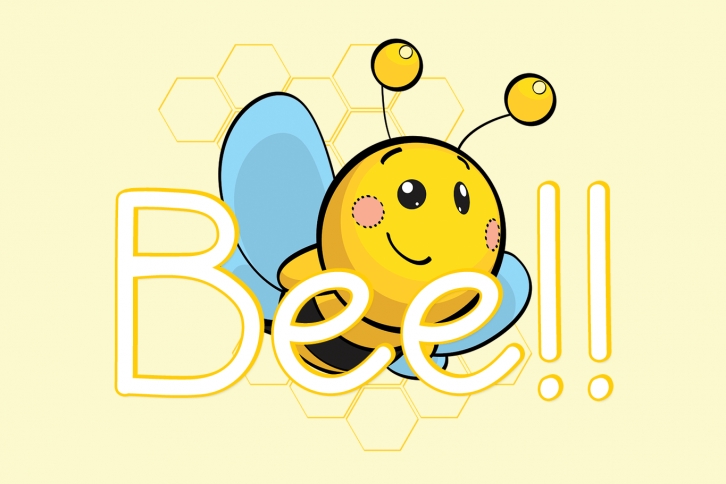
Bee is a thin-lettered handwritten font masterfully crafted to become a true favorite. Contemporary and fresh, it is perfect for any design you wish to create. Add it to your creative projects and make the outstanding!